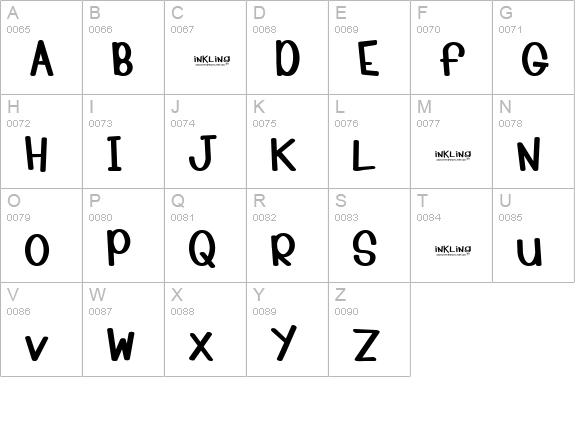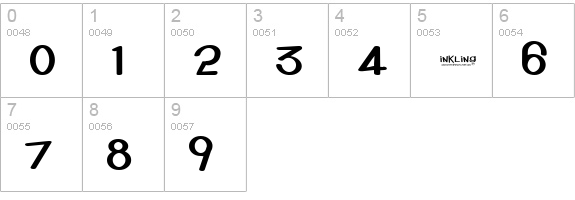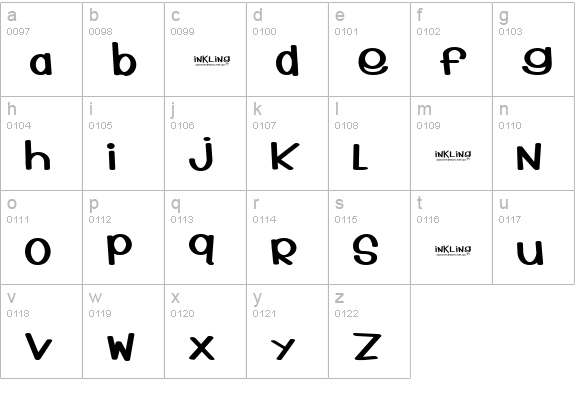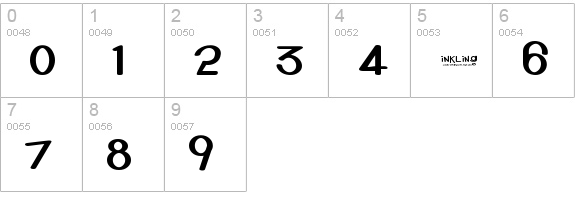
Inkling Font Details
Introducing the captivating and versatile Inkling font! Designed with a touch of sophistication and a dash of creativity, this font is perfect for adding a unique and artistic flair to any project. Its fluid lines and slightly imperfect edges give it an organic and hand-drawn feel, making it ideal for designs that require a personal and authentic touch. With its wide range of weights and styles, Inkling is a font that can adapt to any design concept, from bold headlines and titles to delicate and elegant body text. Its versatility allows it to effortlessly blend into various design themes, whether it's a modern and sleek website or a vintage-inspired poster. And the best part? Inkling is absolutely free! That's right, you can download this stunning font for no cost at all, exclusively at FontsMarket.com. We believe that creativity should be accessible to everyone, and that's why we've made Inkling freely available to all designers, artists, and enthusiasts. So why wait? Discover the endless possibilities with Inkling and bring your designs to life with its unique charm and character. Download it now and let your creativity soar!